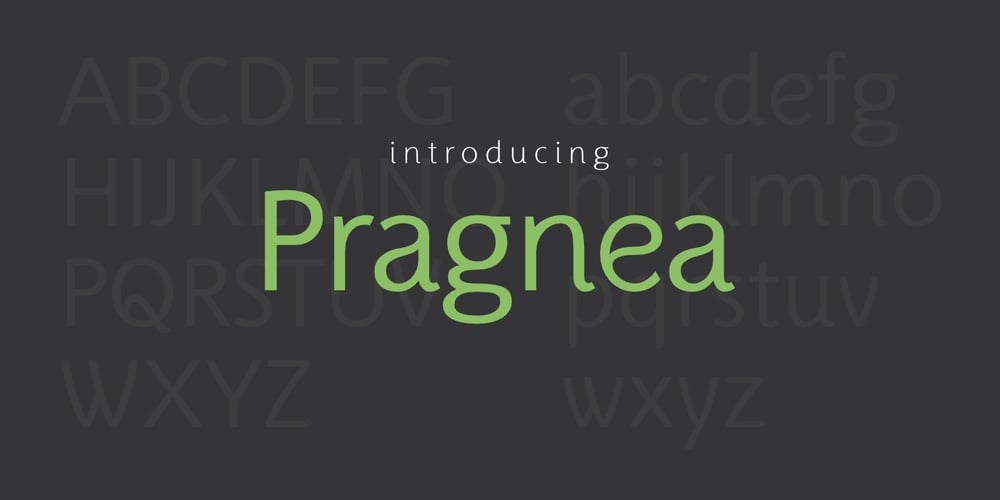
Pragnea Font Family was designed by Muhammad Hastian and published by Hazztype. Pragnea contains 5 styles and family package options. Introducing Pragnea, a modern sans serif font with a unique touch. It had many unique quirks such as its distinctive e, curved stroke on R, K, V, W, and many others. The type family consists of three weights plus matching italics. Packed with 300+ glyphs, it works well both for impactful headlines and for reading sizes.